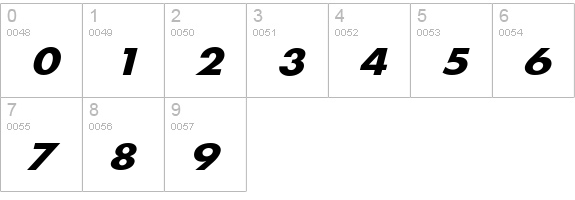
BelmarExtObl-Bo Font Details
BelmarExtObl-Bo font is a sleek and modern typeface that exudes elegance and sophistication. Its bold and oblique design adds a touch of flair to any project, making it perfect for headlines, titles, and branding materials. With its elongated proportions and sharp angles, this font commands attention and leaves a lasting impression. Best of all, BelmarExtObl-Bo font is available for free download at FontsMarket.com. Whether you're a designer looking to elevate your work or a business seeking a unique font for your marketing materials, this font is sure to meet your needs. Don't miss out on the opportunity to add BelmarExtObl-Bo to your font collection today!